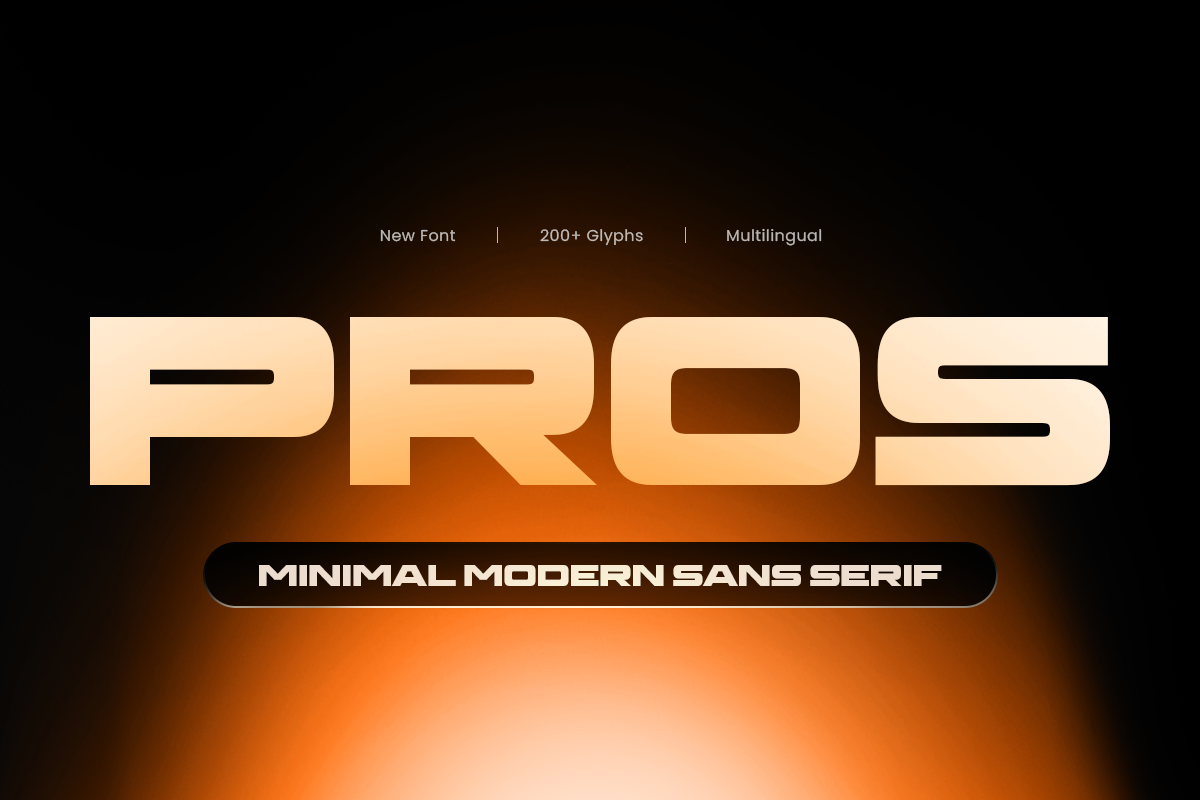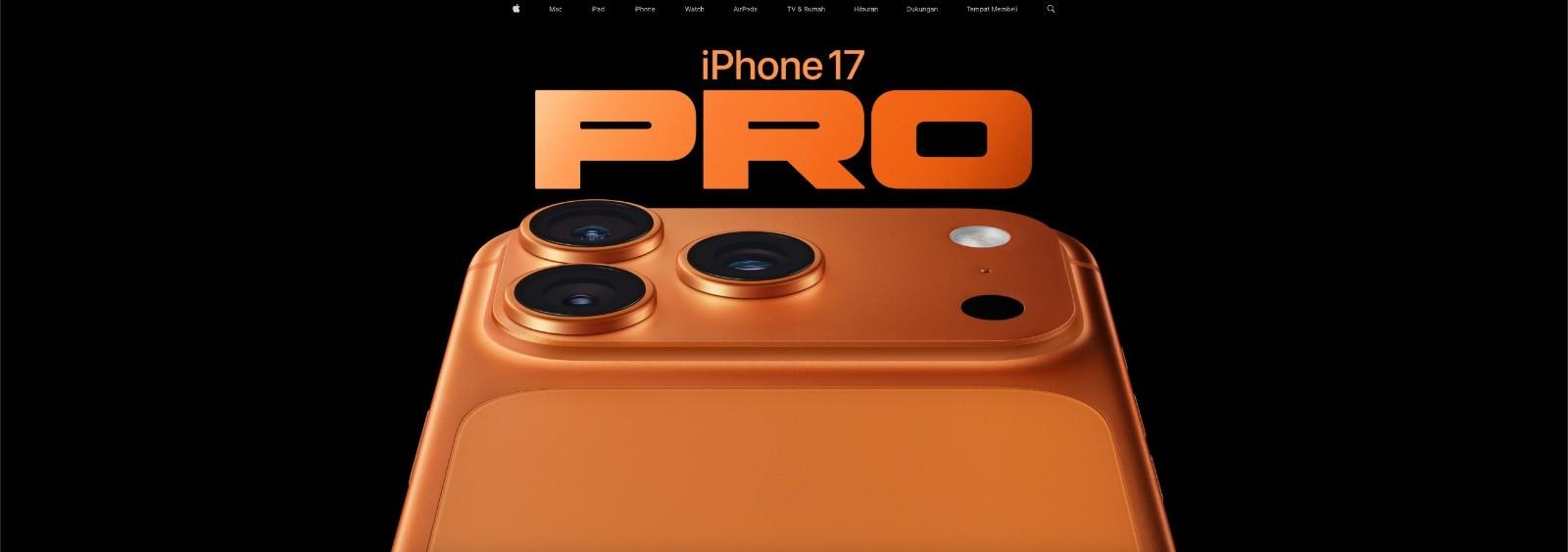
What Font Does the iPhone 17 Pro Use?
What font does the iPhone 17 Pro use? Today, we explore Apple’s choice of typography, focusing on the latest discussions around the font. We'll also suggest some alternatives that you can download from Sensatype Studio to elevate your design projects.
If you're interested in the design of the iPhone 17 Pro, you may have noticed the bold font used in the website header. This article explores the ongoing discussions among users about the iPhone 17 Pro's font, highlighting Pros - Minimal Modern Sans Serif and possible alternatives for design projects.
The Font Behind the iPhone 17 Pro
The font used in the iPhone 17 Pro has sparked considerable interest. It has also sparked debate among community users. Many seem to agree that it is Pros - Minimal Modern Sans Serif, a typeface known for its clean lines and contemporary aesthetic.
The font on the iPhone 17 Pro has sparked considerable interest and debate within the community. Many agree that it is Pros-Minimal Modern Sans Serif.
This choice aligns well with Apple's design philosophy of emphasizing clarity and simplicity across its interfaces. Users in community forums have expressed excitement about the new typography. One user noted, "I really love the new font on the 17 Pro. It looks sleek and modern."
Pros - Minimal Modern Sans Serif
PROS is a minimal modern sans serif font designed to express clarity, sophistication, and timeless design. Built with geometric precision and subtle elegance, this typeface is ideal for branding, editorial design, packaging, presentations, and corporate identity.
User and Community Feedbacks from Iphone 17 Pro Font
The reception of Pros-Minimal Modern Sans Serif has been overwhelmingly positive. Many users appreciate how it improves the device's appearance. However, some have mixed feelings about Apple’s design direction. One commenter remarked, "It feels like the Pro lineup is currently overshadowed by the Air lineup, even in the marketing."
This feedback emphasizes the ongoing discussion in design communities about brand strategy and aesthetics.
Font Alternatives for iPhone 17 Pro
If you appreciate the style of Pros-Minimal Modern Sans Serif but are looking for alternatives for your design projects, consider the following options available on Sensatype Studio:
1. Agneos-Modern Expanded Techno Logo Font
Agneos - Modern Expanded Techno Font
AGNEOS is a modern expanded techno futuristic font designed to push the boundaries of digital branding. With its bold, extended letterforms and sharp geometric style, AGNEOS creates a strong visual identity that resonates with futuristic and tech-forward projects.
2. Bingo- Modern Corporate Logo Font
Bingo - Modern Corporate Logo Font
BINGO is a modern logo font designed for simplicity, precision, and timeless appeal. With its clean geometry and balanced proportions, it’s ideal for designers who want to create strong, minimal, and professional brand identities.
3. HEADLINE-Ultra Bold Sans Serif
Headline - Ultra Bold Sans Serif
A new Sans Serif that created special for Headline, Title and more stand out typography needs, with extra outline that will add variations. It's so perfect to add style and headline overview.
4. Mobile-Racing Car Modern Font
Mobile - Modern Racing Car Font
Mobile is a Racing Car Modern Font that created special for Branding, Title and more stand out typography for sport and action.
5. Anxler-Technology Corporate Font Family
Anxler - Technology Rounded Font Family
ANXLER is a technology corporate font family designed to meet the needs of today’s fast-paced, digital-driven world. With its clean, modern design and versatile style options, ANXLER provides the perfect solution for high-tech branding, corporate identity, and digital applications.
6. Aero Space - Modern Scifi Font
Aerospace - Modern Sci-fi Font
Aerospace is a Modern Sci-fi font that created special for Technology, Sci-fi, modern and more stand out typography needs, with extra alternative styles that make your design more memorable. It’s so perfect to add your style and headline overview for future, technology, actions, and technology theme. And specially for this font, we crafted for bold action style and modern feels so enjoy to create any project that will show your main idea out.
FAQ
Q: What font does the iPhone 17 Pro use?
A: Good typography enhances readability and contributes to a seamless user experience, especially in varying lighting conditions.
The iPhone 17 Pro distinguishes itself through its advanced features and thoughtful use of typography, particularly the Pro Minimal Modern Sans Serif font. This choice resonates with users, reflecting Apple’s commitment to modern design and clarity. If you're looking for similar fonts or exploring design alternatives, there are plenty of options to enhance your creative projects on Sensatype Studio.